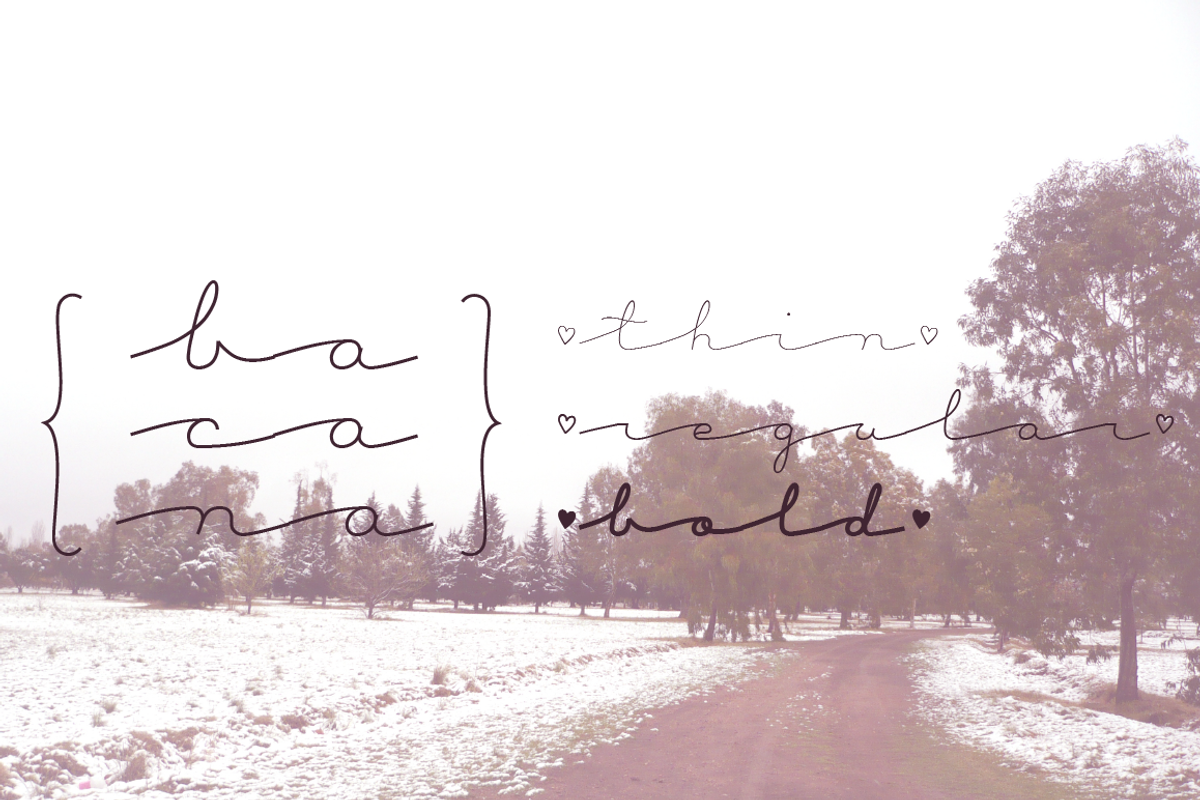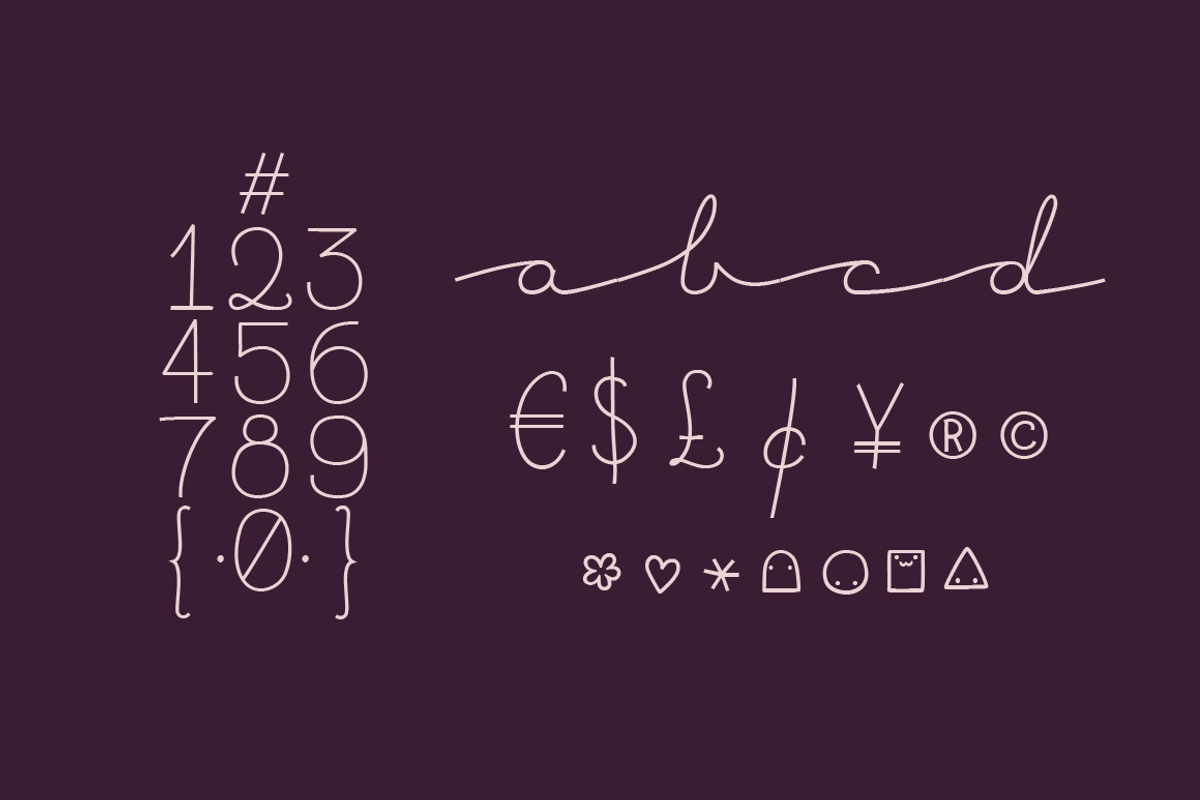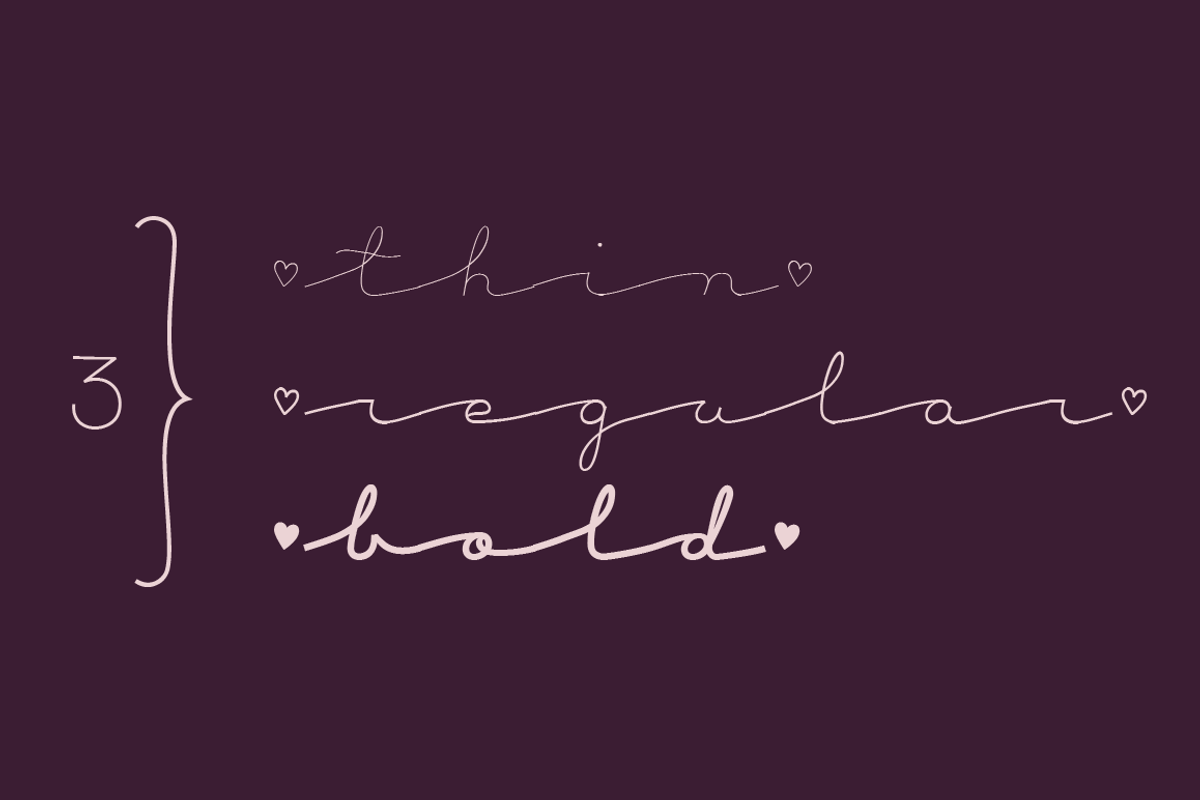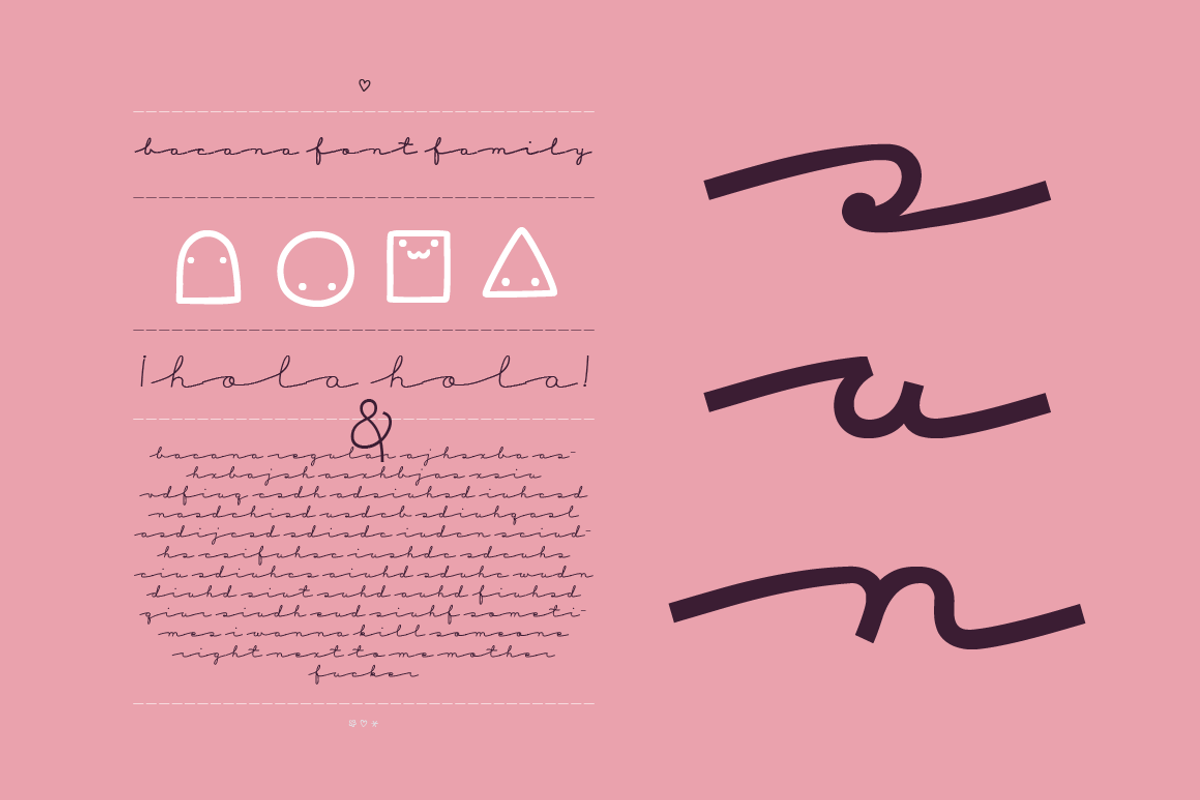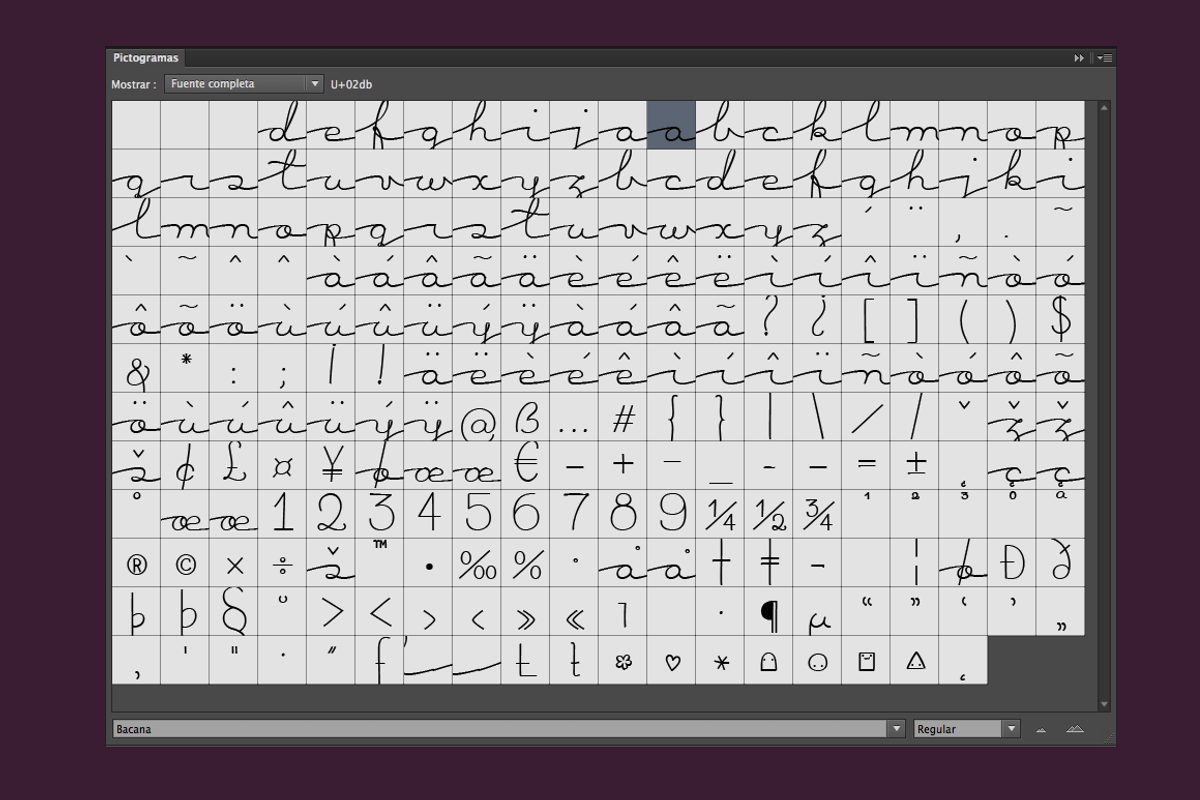
Bacana font family
Bacana font family by MaGo is a font selected for branding, posters, packaging, typography.
- Bacana Thin
- Bacana Regular
- Bacana Bold
Bacana font family by MaGo fits naturally into Branding, posters, packaging, typography.